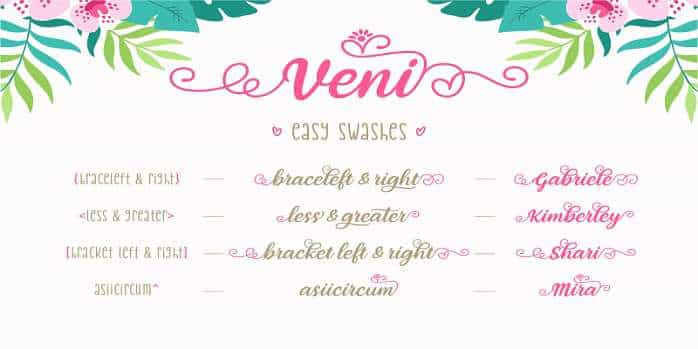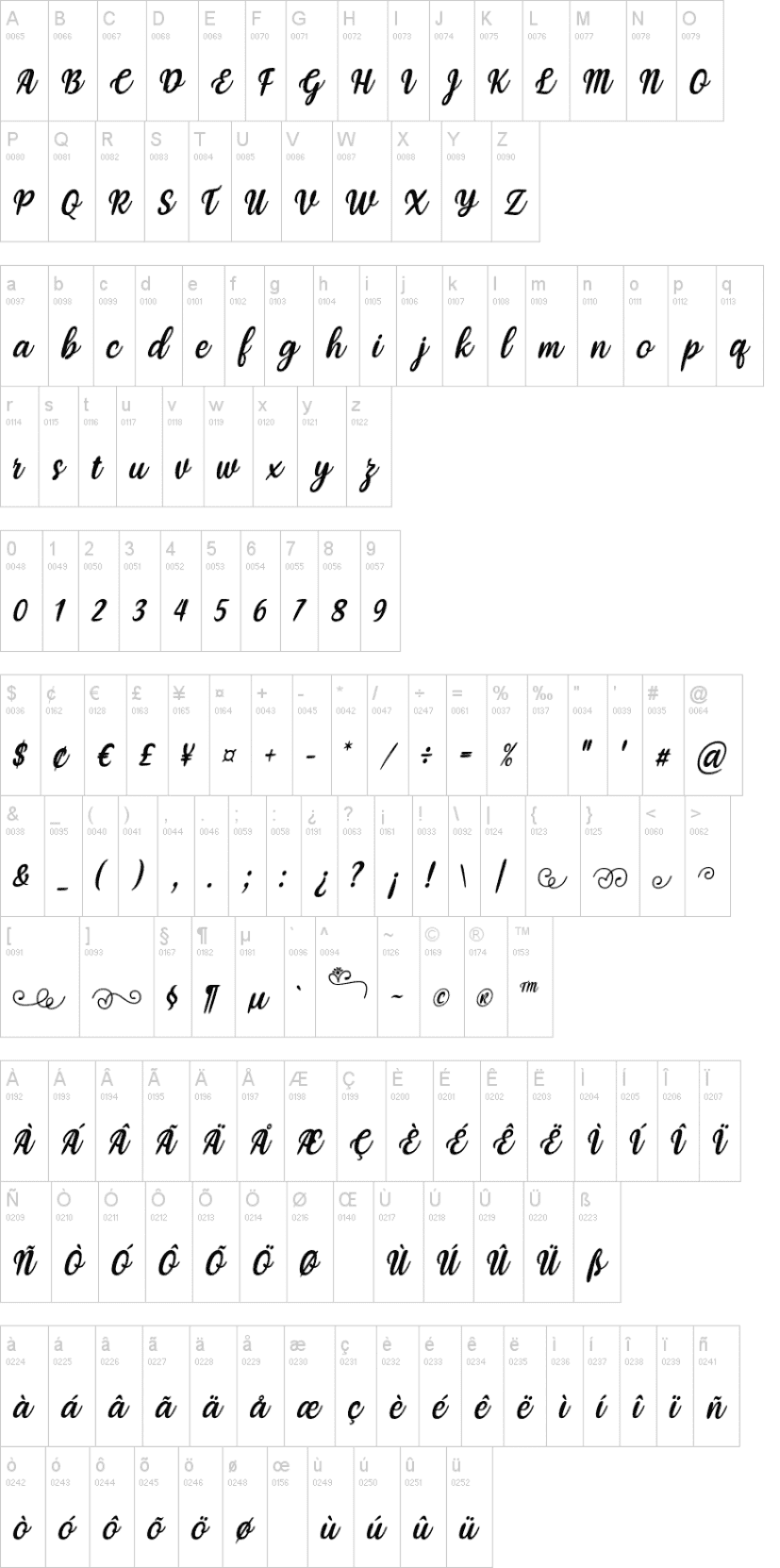
Veni is a font family that is a Calligraphy type font that has been designed by 7NTypes and is available for free download for personal use only. The free version offers all the letters, both large and small, and a few extra symbols as well.